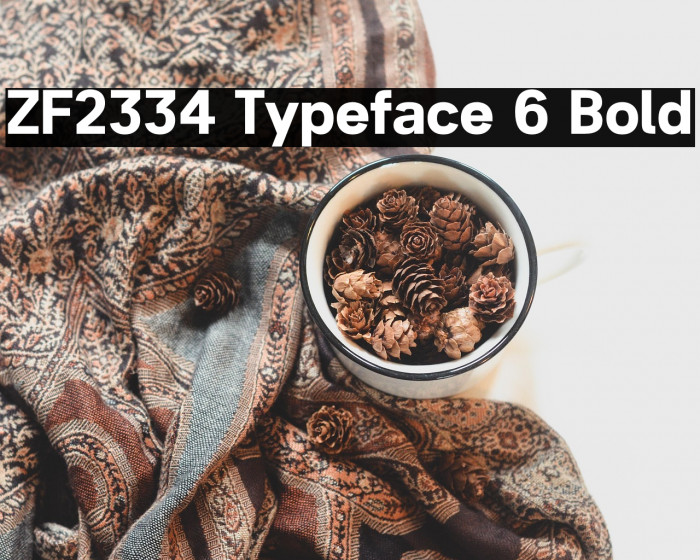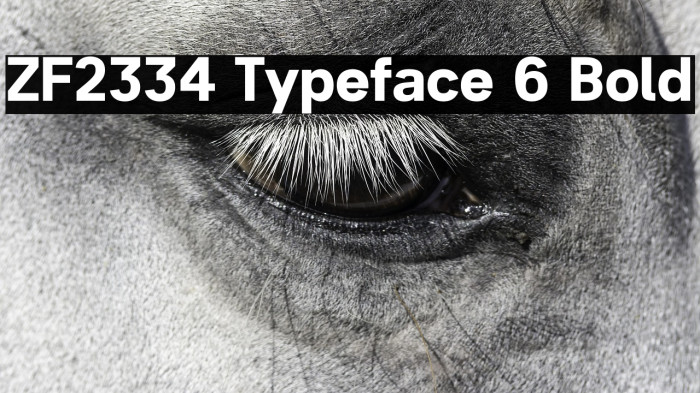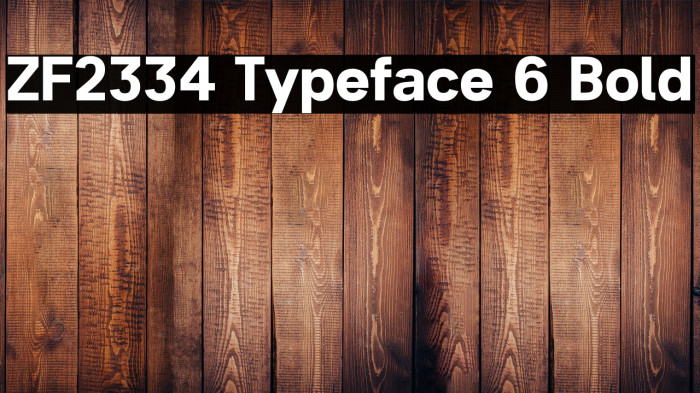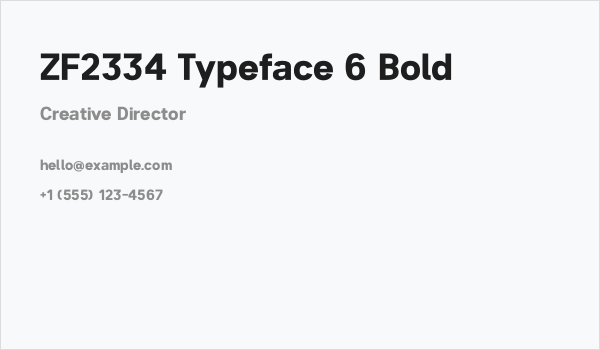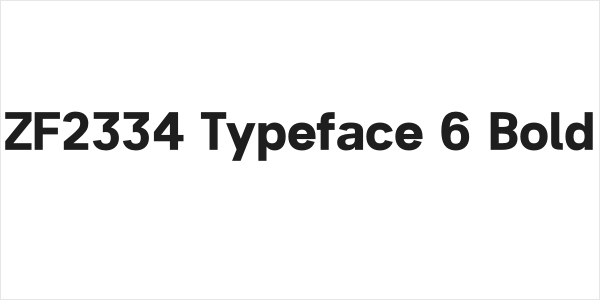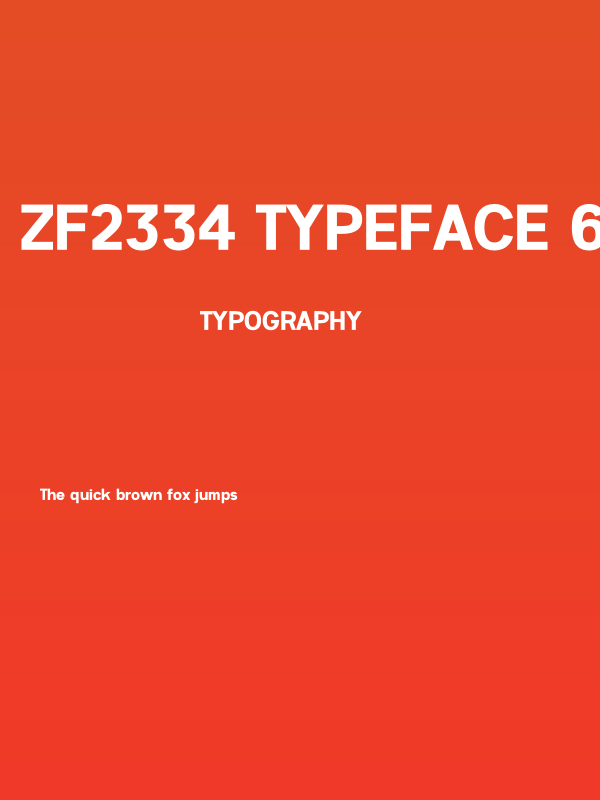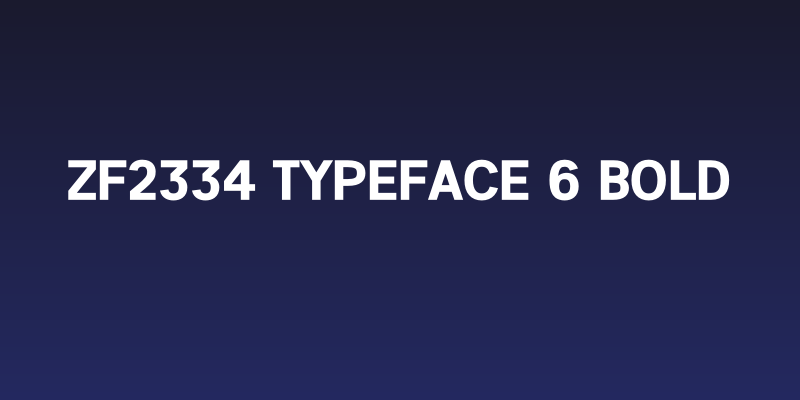
ZF2334 Typeface 6 Bold Font
ZF2334 Typeface 6 Bold Description
This typeface features a bold and robust design, characterized by thick strokes and a strong presence. The uppercase letters are well-defined with a consistent height, while the lowercase letters maintain a harmonious balance. The numerals are clear and easily distinguishable, making them suitable for various applications. Special characters are included, adding versatility to the font. The overall design is modern and impactful, making it ideal for attention-grabbing headlines and branding projects.
| Proposed Projects | Ideal for branding, advertising, headlines, and any project requiring a strong visual impact. |